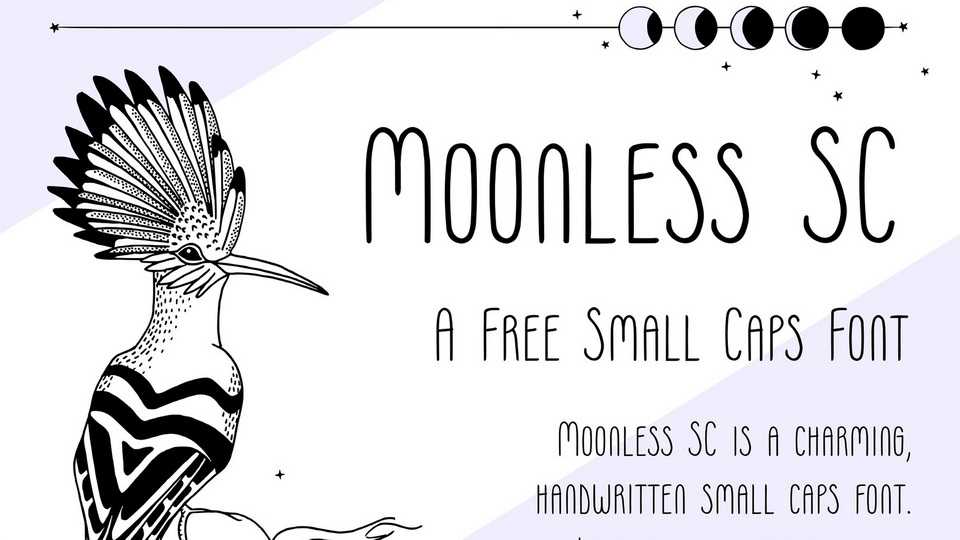
Download Moonless font, a charming handmade typeface designed for texts. Moonless is perfect for children’s books, poetry, invitations and design magazines.